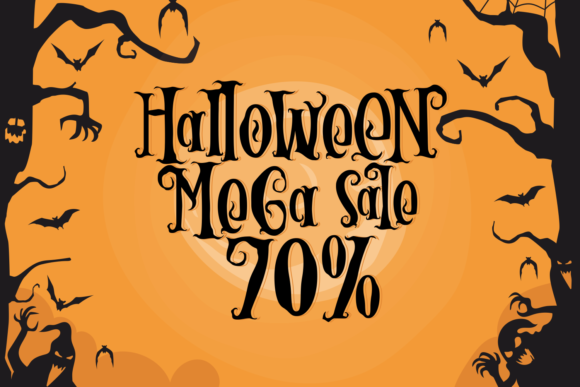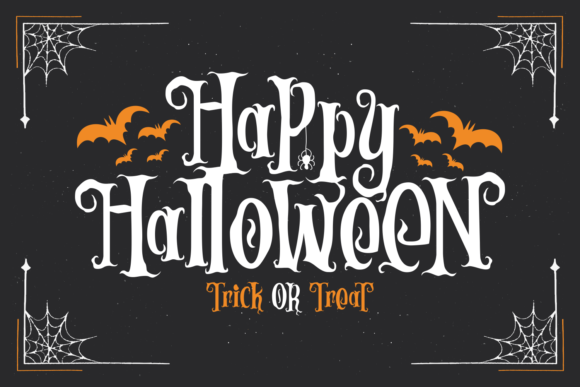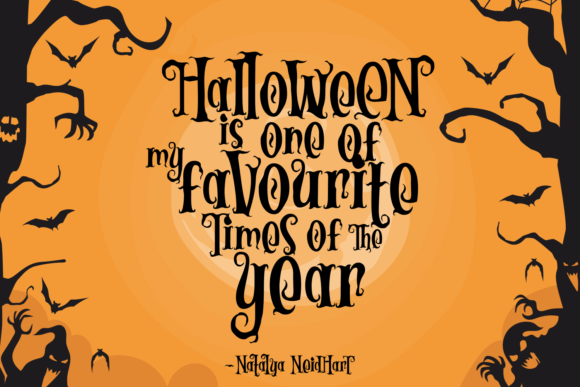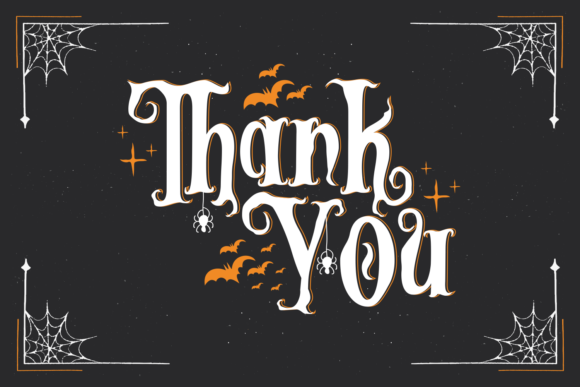
Unleash Your Creativity with the Spooky Charm of Holiween Font
Have you ever been brainstorming a new project, pouring over ideas and concepts, only to feel like something’s missing? You know, that spark that takes your design from meh to mesmerizing? For designers, finding the perfect font can be the game-changer that takes their work to the next level.
Enter Holiween Font, an incredibly bold and spooky display font that’s guaranteed to make your creative ideas stand out from the crowd. With its unique blend of horror and whimsy, this font is perfect for designers looking to add a touch of the unknown to their projects. Whether you’re creating a haunted house flyer, a spooky social media graphic, or a horror-themed website, Holiween Font is the perfect addition to your design arsenal.
What sets Holiween Font apart is its versatility and ability to evoke a range of emotions, from fear to fascination. As a designer, you’ll appreciate the value of having a font that can add depth and complexity to your work, without overpowering it. So why settle for a bland, generic font when you can unleash the spooky charm of Holiween Font and take your designs to new heights?
Holiween Font Key Features
- Unique Characteristics: Hand-drawn, gothic-inspired design with intricate details and ornaments, perfect for creating a spooky atmosphere
Holiween Font Review
I must say, I was initially drawn in by the Holiween Font’s ✨ bold and playful aesthetic. The font’s ability to seamlessly blend Halloween and Christmas elements is quite unique and could work well for seasonal or festive projects. The font’s versatility in size and color makes it easy to incorporate into various designs.
- The Holiween Font’s ✨ bold lines and intricate details make it perfect for adding a touch of whimsy to invitations, greeting cards, or even packaging.
- The font’s ✨ festive feel is contagious, and I can see it being a great addition to holiday-themed social media posts or website headers.
However, there are a few limitations that I would like to point out. The Holiween Font can come across as a bit too cartoonish or over-the-top for more formal or professional designs. Additionally, some of the characters may not be as detailed or consistent in their design, which can be a bit distracting.
- ⚠️ The Holiween Font may not be suitable for more formal or professional projects due to its playful and cartoonish nature.
- ⚠️ Some characters may not be as detailed or consistent in their design, which can be a bit distracting.
Overall, I would give the Holiween Font 3.5 out of 5 stars. While it’s a unique and fun font, it may not be the best choice for every project. However, for those looking to add a touch of whimsy and festivity to their designs, the Holiween Font is definitely worth considering.
For optimal results, use the Holiween Font for titles, headings, and emphasis. It’s ideal for:
- Halloween-themed designs
- Spooky or eerie atmospheres
- Creepy or mysterious titles